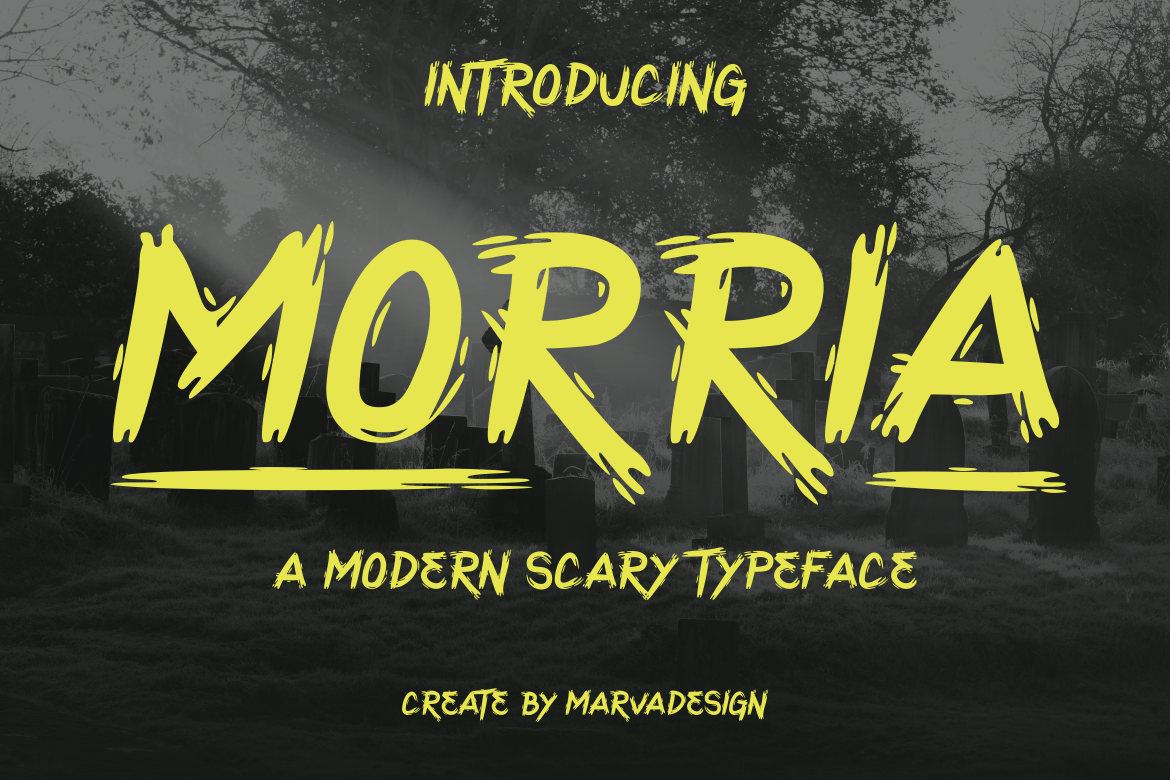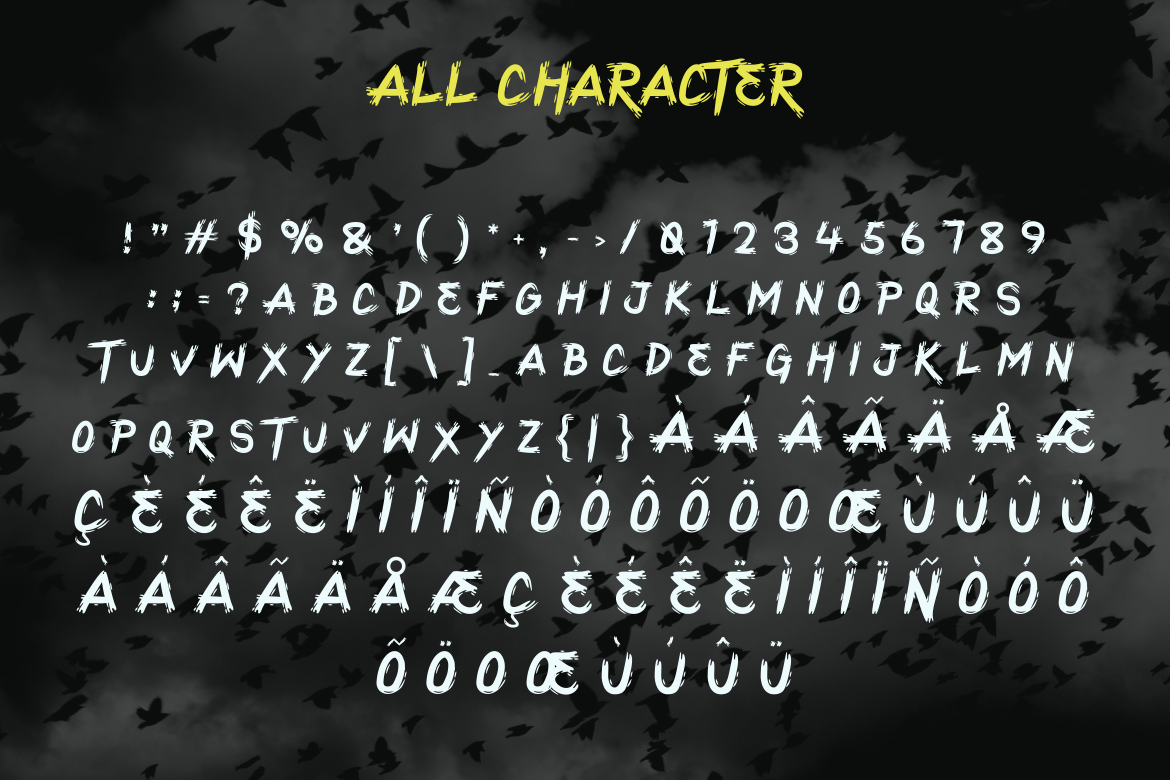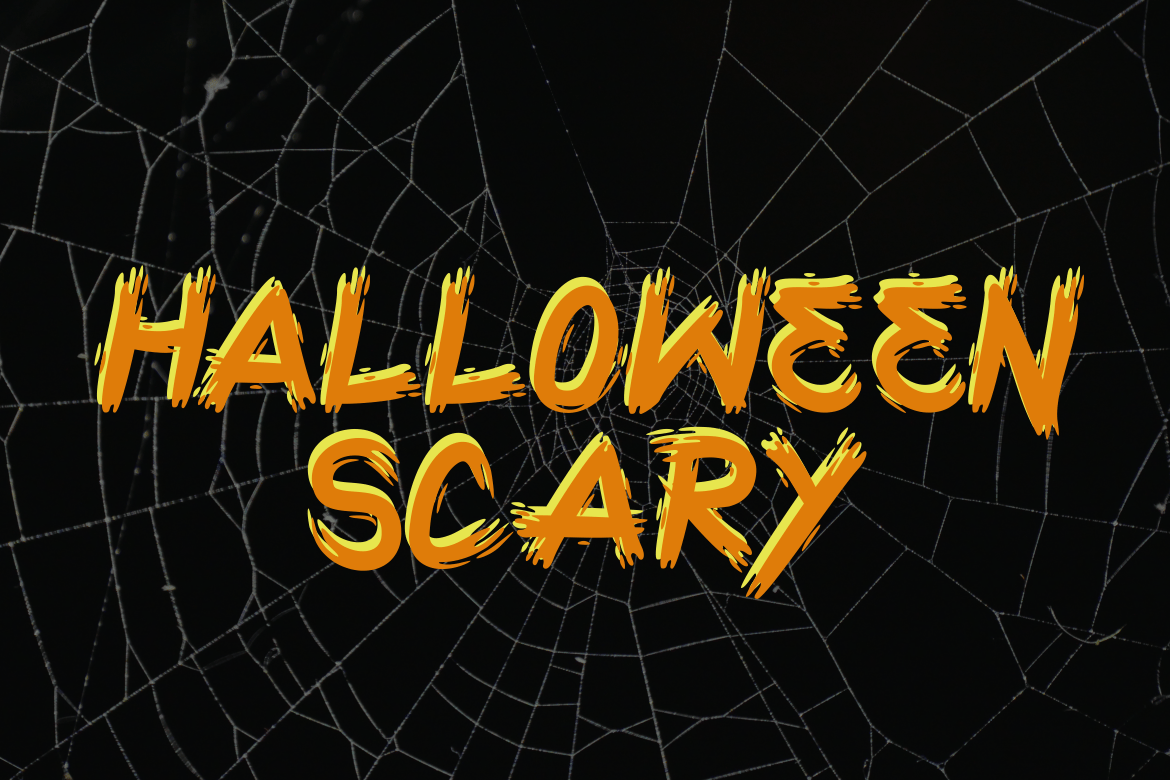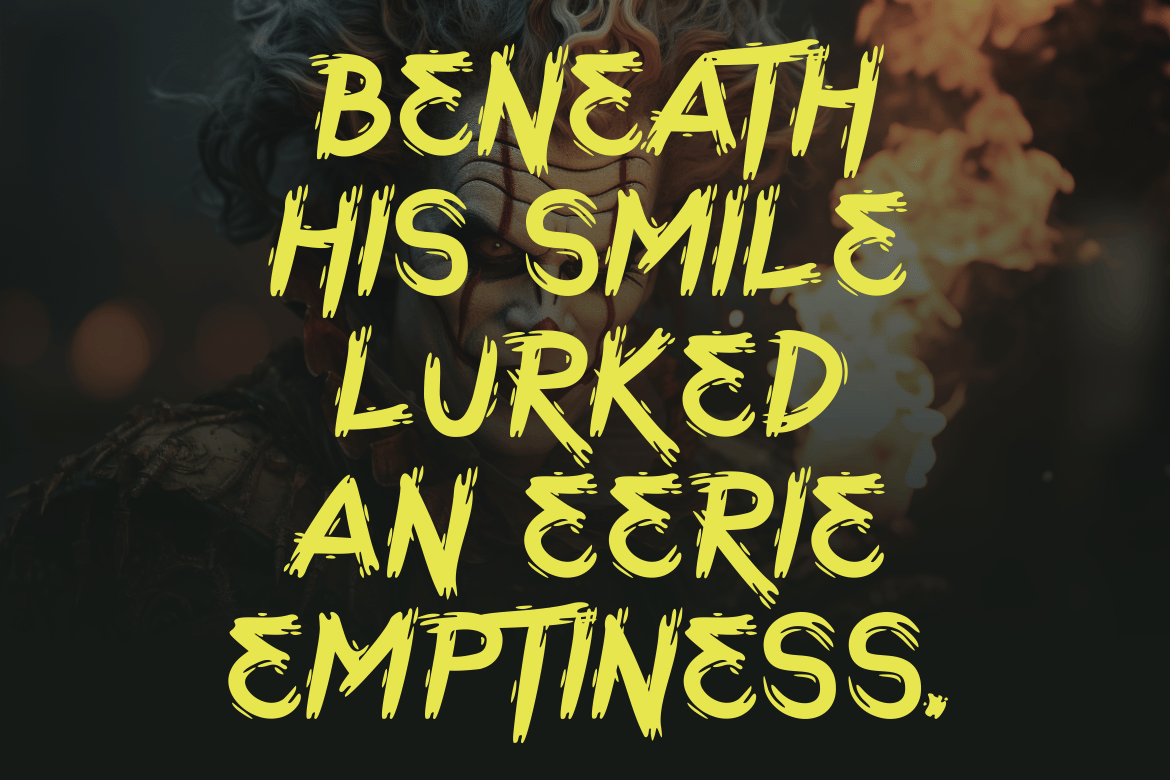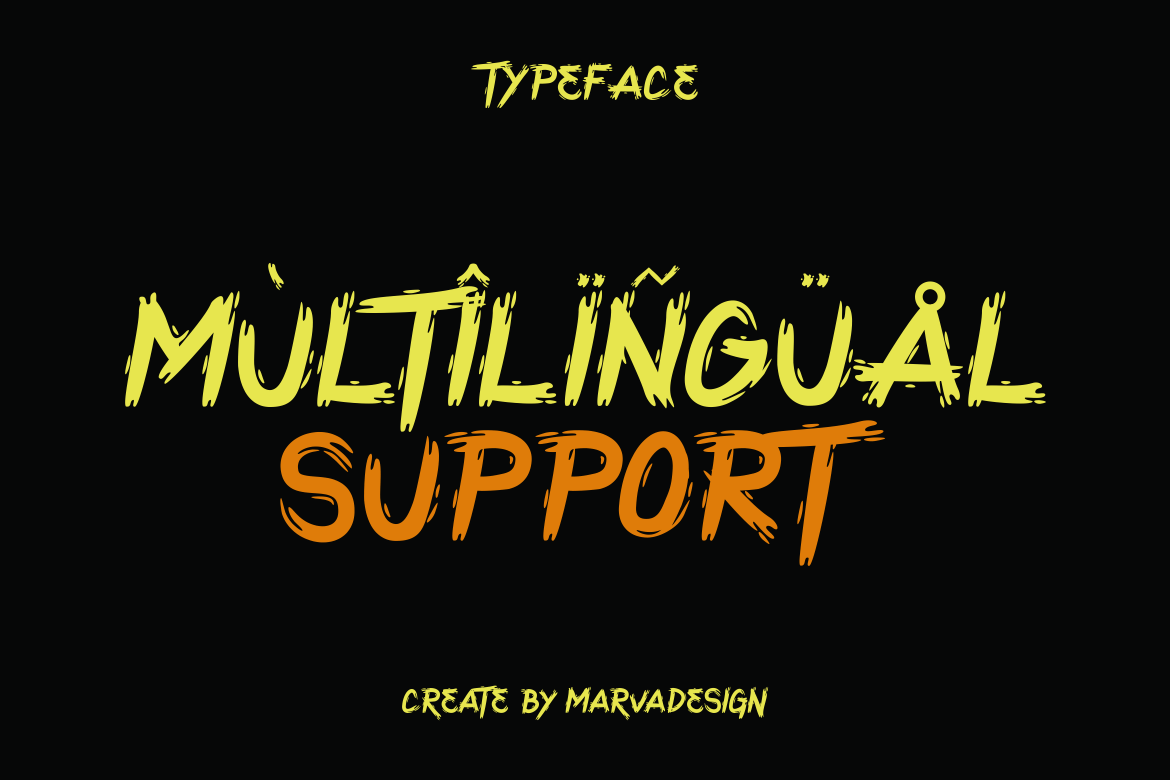
Morria – A Modern Scary Font
Introducing our new product Morria Font – Modern Font
Morria Font – Modern Font is a bold and authentic display font. The font is suitable for any branding project like logo, Template Design, Product and many more. outstanding in a wide range of contexts.